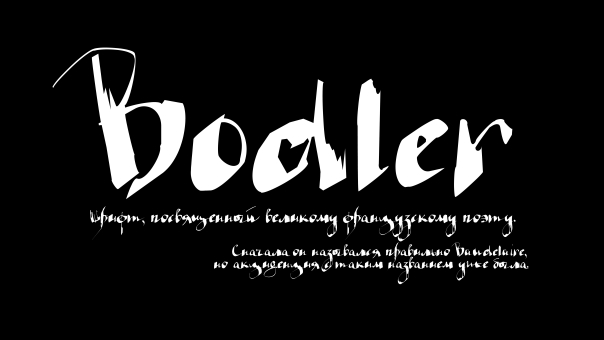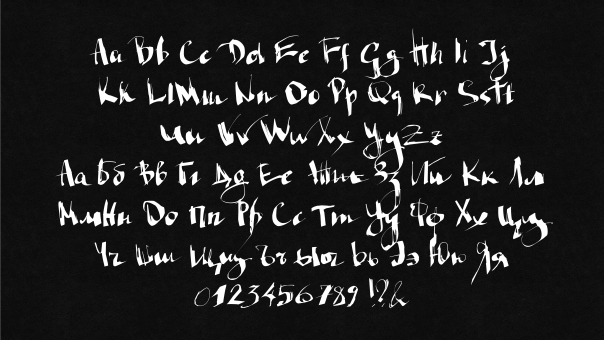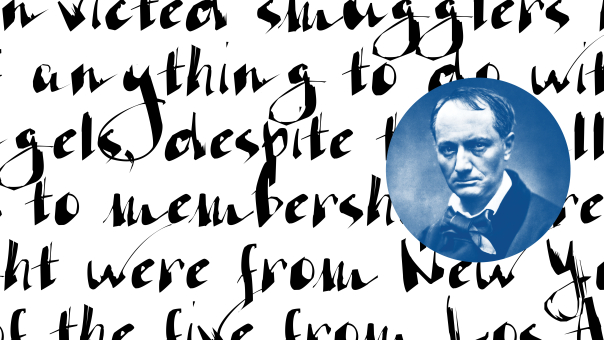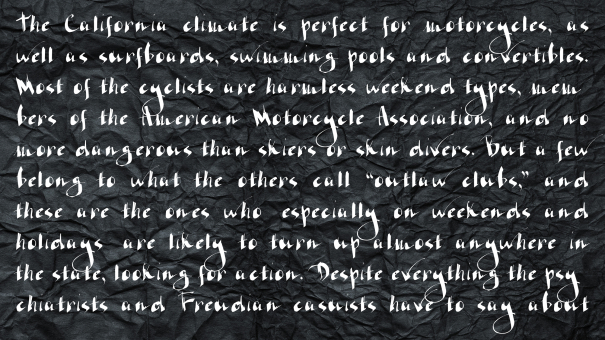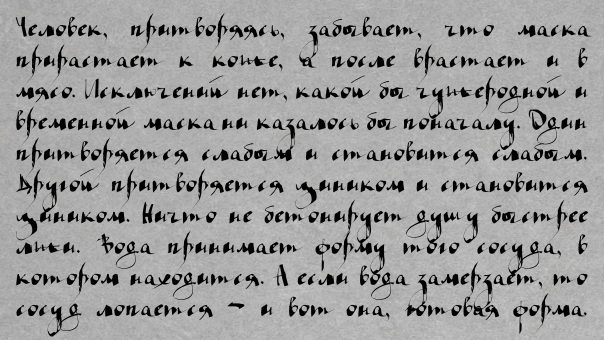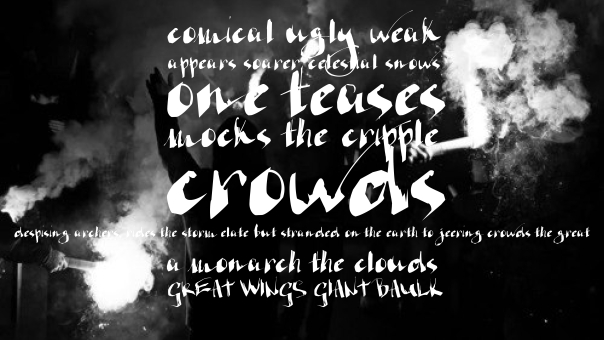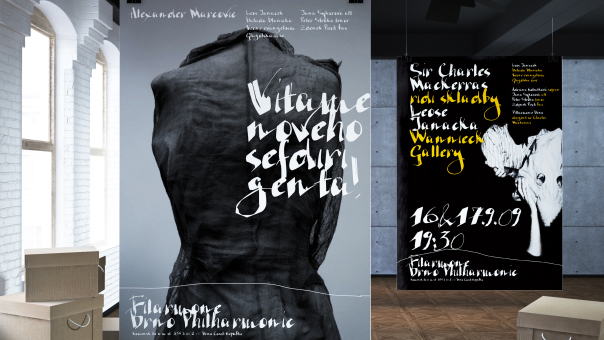
Bodler
Colapen based typeface supporting cyrillic. I know that Bodler is Baudelaire, but font with that name exists. ;)
Designer: Irina Fursina
Publisher: Irina Fursina